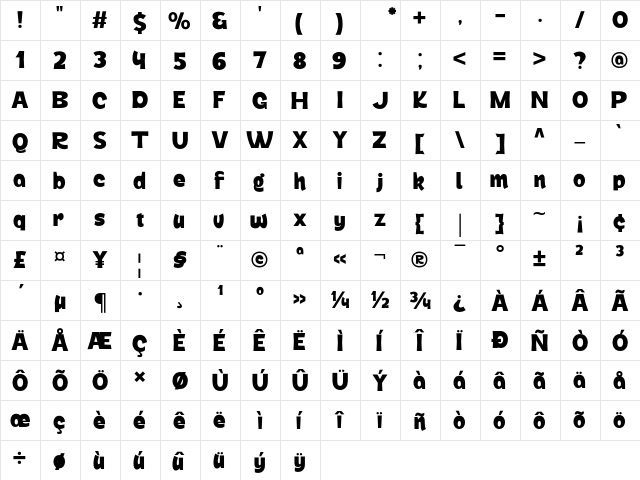
Winear Regular
DesignerVztype || Randi Ilhamsyah
Design Context for Winear Typeface
Winear offers clean, dependable letterforms without strong stylistic allegiance, making it a practical choice for designers who need flexibility.
Pro Tip: Pair Winear with a font of contrasting weight or personality to build a more expressive typographic hierarchy.